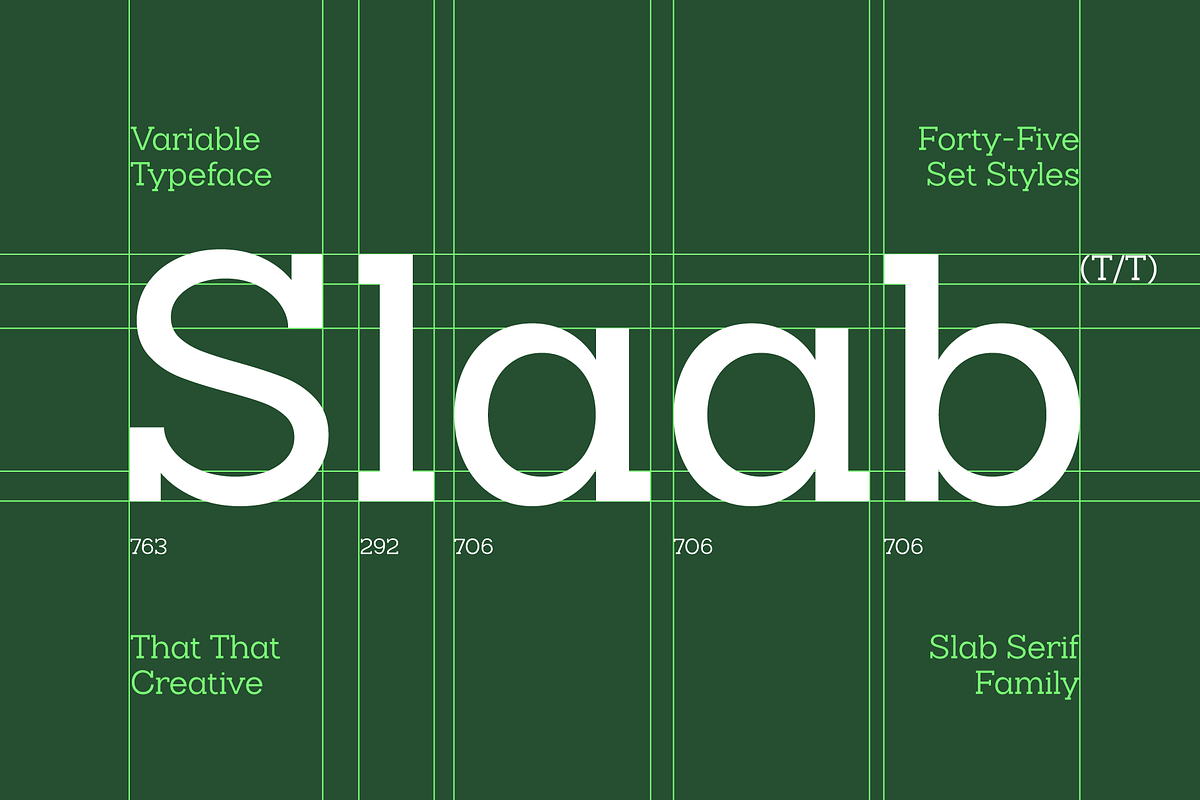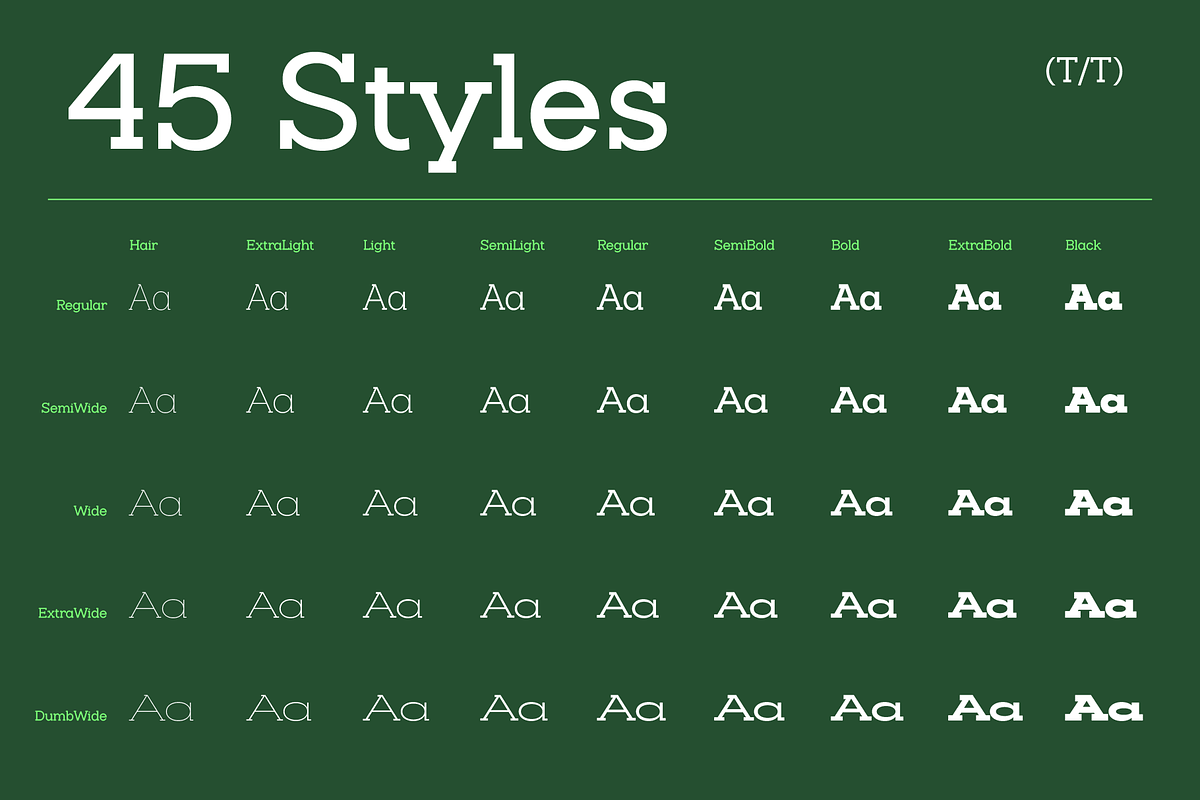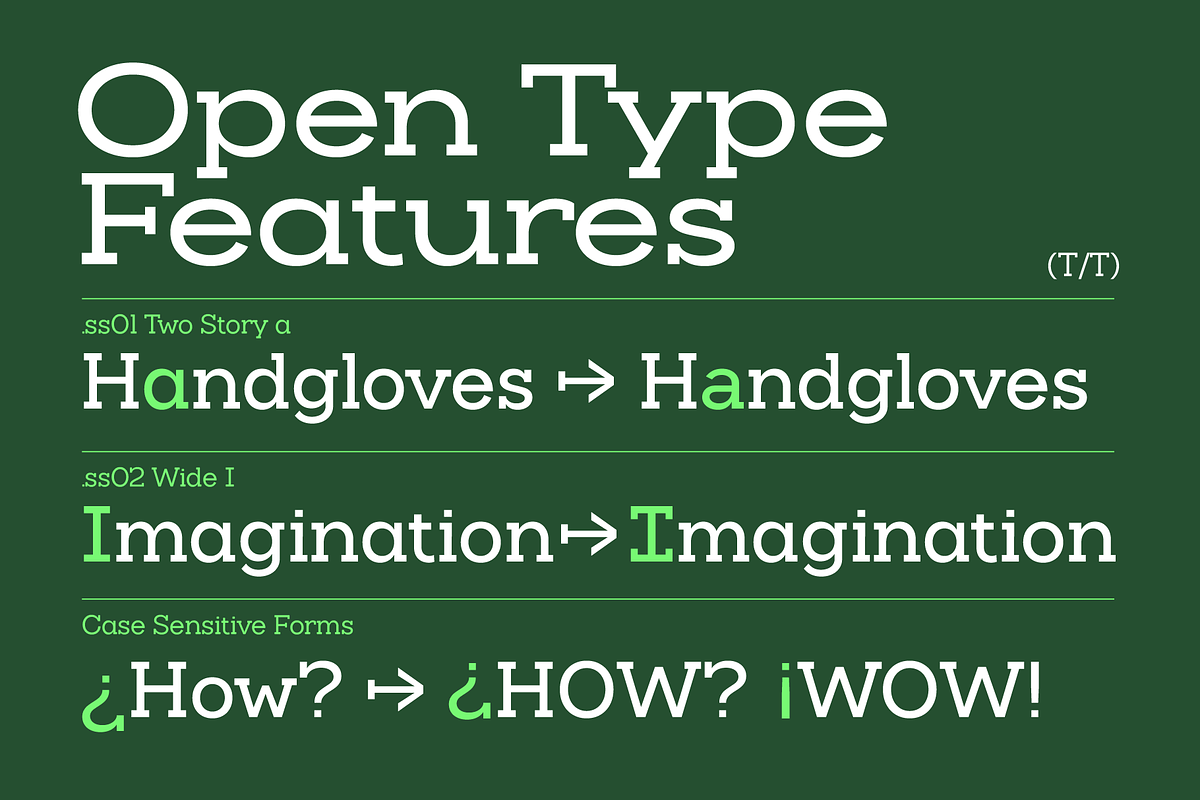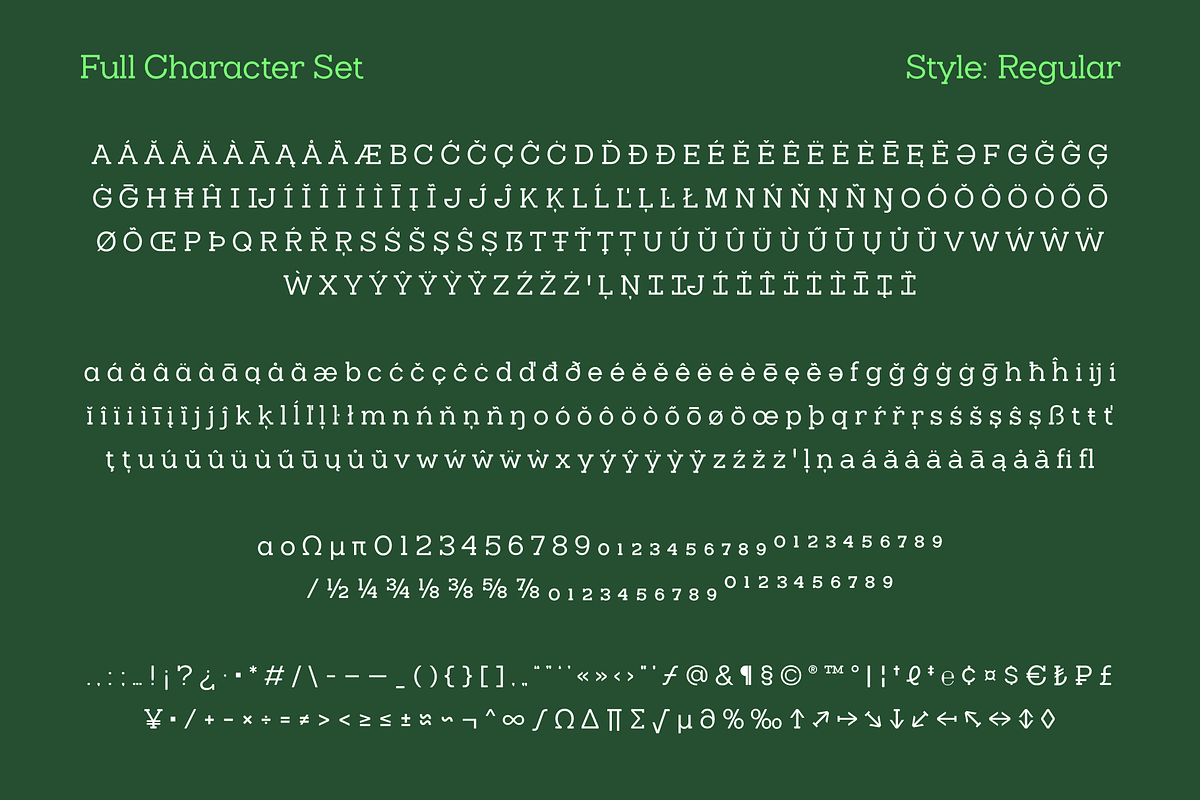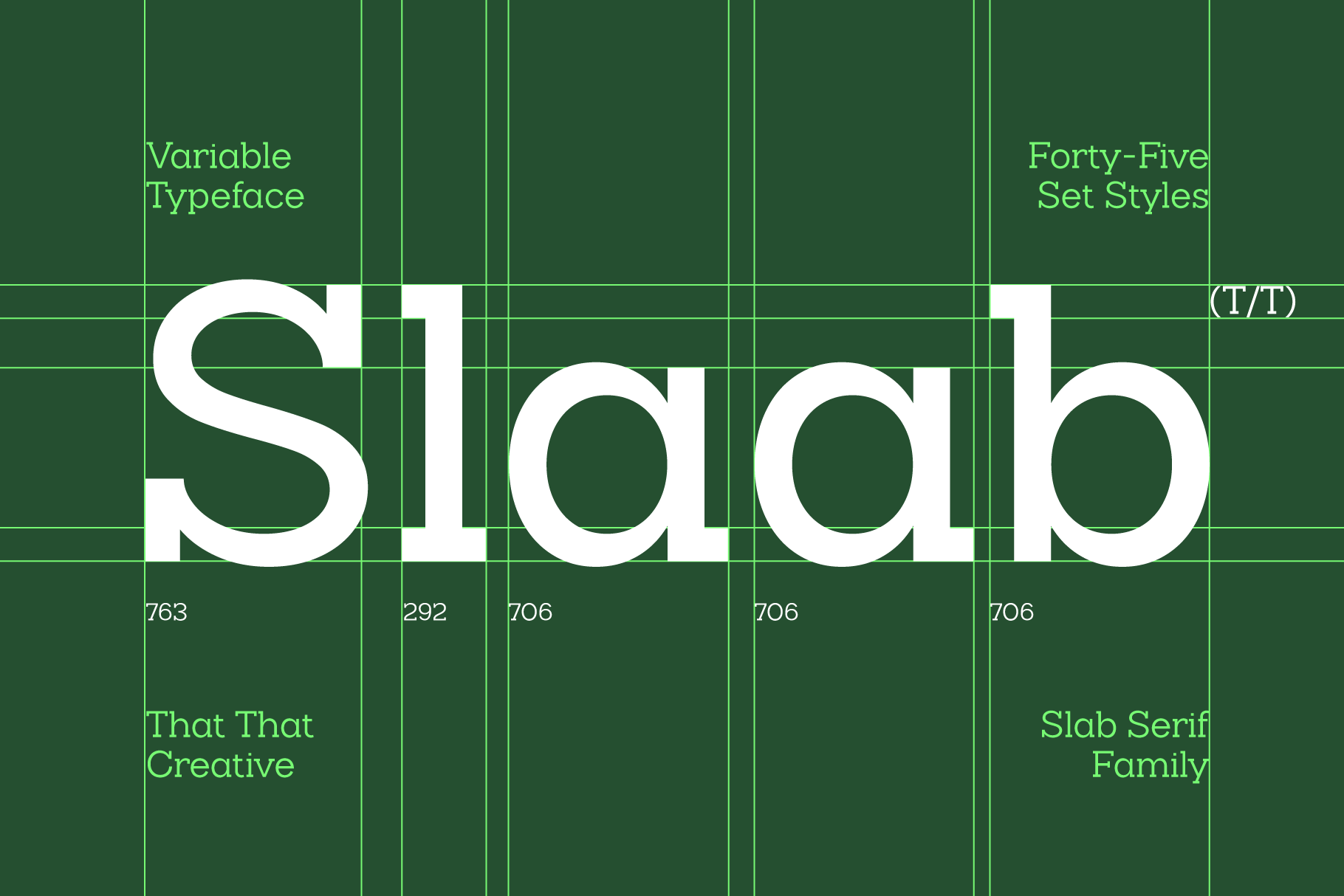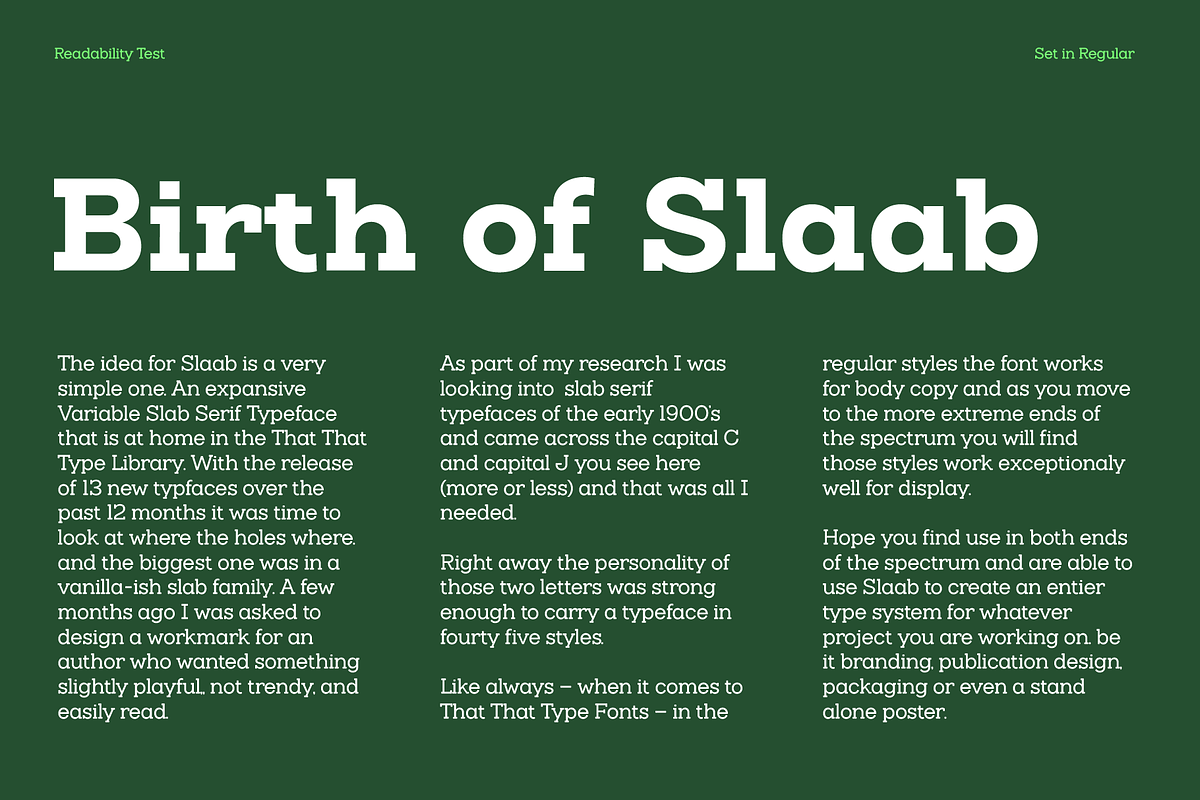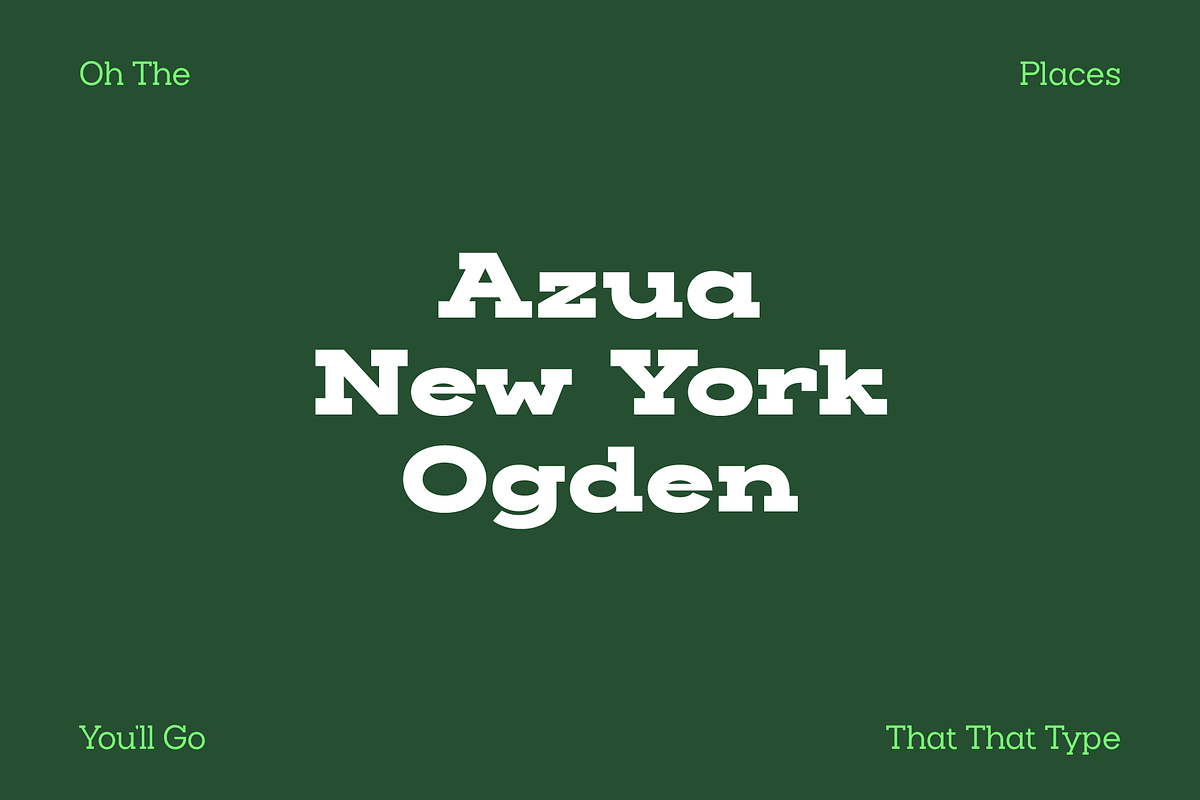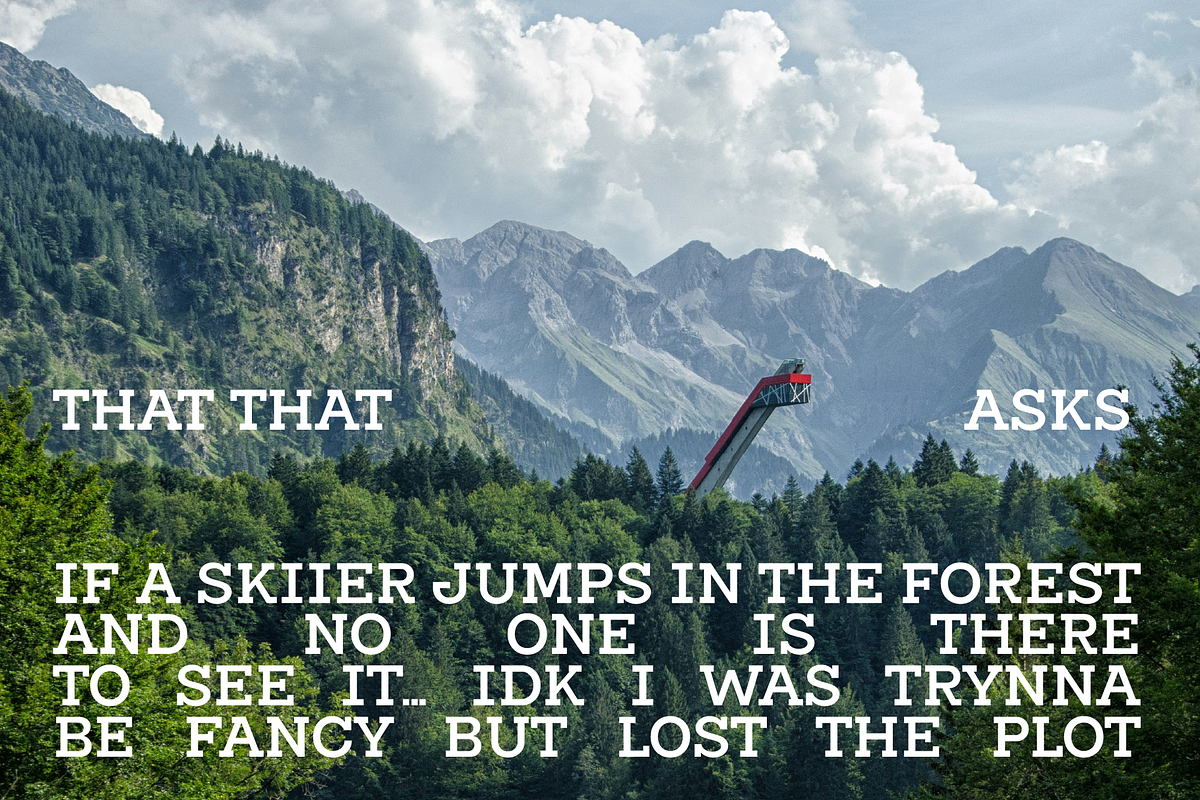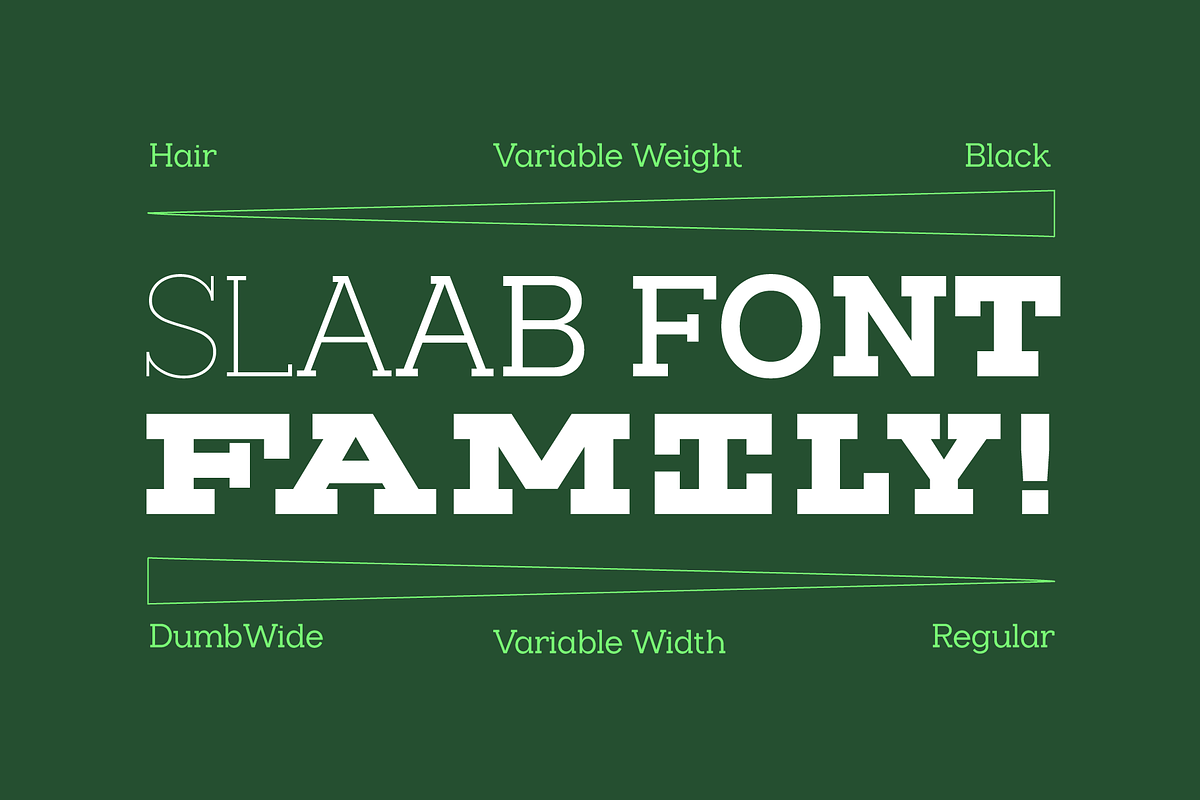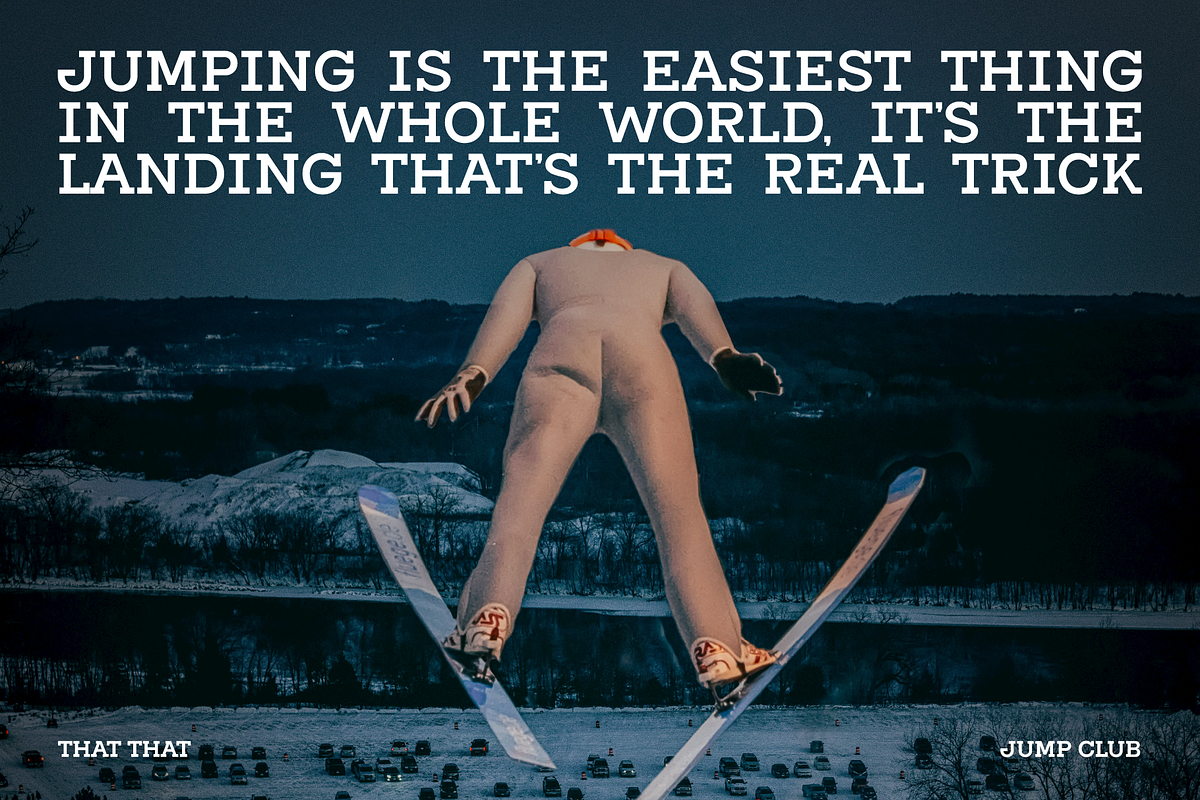
Slaab Font Family 45 Styles
Slaab is a stable slab serif variable typeface. It comes in 45 styles with Variable Width and Weight. This one is perfect for that Swiss clean look. This font is perfect for blocks of text as well as posters, websites, branding logos and whatever else you might think of.
Font Includes
- 45 Styles
- Variable Font
- Adobe Latin 3 Language support (Over 120 Languages)
- Alt a Style Set
- Alt I style Set
- Case Sensitive Punctuation